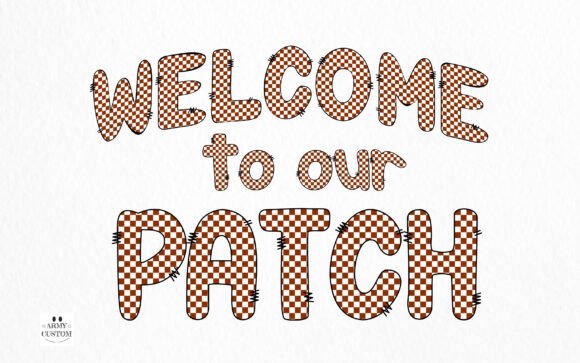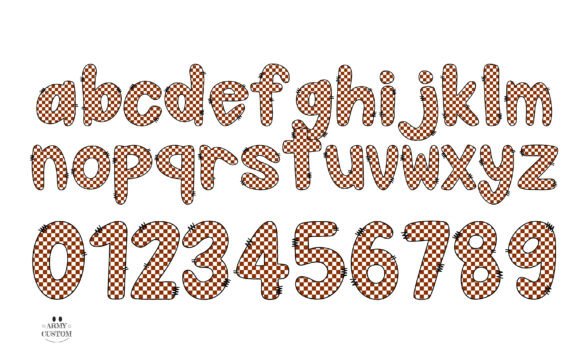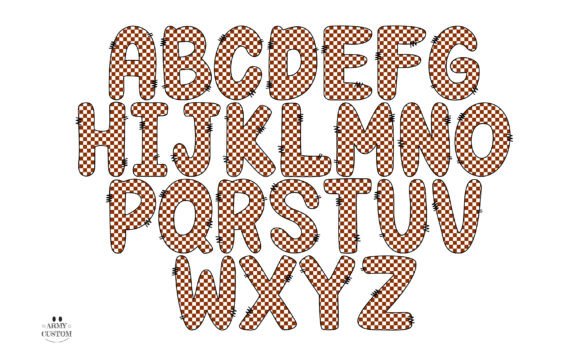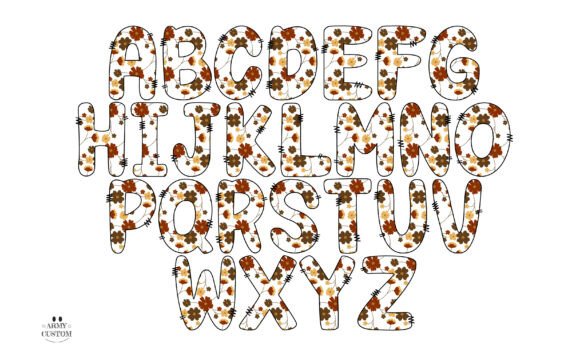
Introduction to Preppyfall5 Plaid Font
As the crisp autumn air sets in, many designers find themselves itching to create something new and cozy. Perhaps you’re brainstorming ideas for a seasonal craft project or working on a design concept that screams ‘fall vibes.’ If so, you’re in luck! Introducing the Preppyfall5 Plaid Font, a stunning color font collection that embodies the warmth and charm of the autumn season.
This delightful font features a unique patchwork effect, complete with patterns like florals, pumpkin florals, and hand-drawn stitching. With its handcrafted look and rich autumn palette, the Preppyfall5 Plaid Font is an absolute game-changer for designers seeking to add a touch of whimsy to their creative projects. Whether you’re working on a seasonal quote, greeting card, or DIY design, this font is sure to elevate your design to the next level.
Key Features of Preppyfall5 Plaid Font
- High-quality design resource perfect for creative projects
- Features a unique, preppy-inspired plaid pattern with a modern twist
- Designed to be highly versatile, suitable for a wide range of design applications
Honest Review: Preppyfall5 Plaid Font
I recently stumbled upon the Preppyfall5 Plaid Font while searching for design resources online. As a designer, I was excited to give it a try and see how it could enhance my creative project.
Firstly, I was impressed by the font’s high quality and unique design. The plaid pattern adds a fun and playful touch to any text. I was able to use it for a project and the result was amazing.
Here are some things that work well with the Preppyfall5 Plaid Font:
- ✨ Unique design that adds a personal touch to any project
- ✨ High quality, making it perfect for printing or digital use
- ⚠️ The font does not come with a transparent background option, which might be a problem for some designers
- ⚠️ The font is a bit heavy, so it might not be suitable for all design projects
Overall, I was impressed by the Preppyfall5 Plaid Font and would definitely recommend it to designers looking for a unique and high-quality design resource. It’s perfect for creative projects that require a fun and playful touch.
The Preppyfall5 Plaid Font is a high-quality design resource that can elevate your creative project with its unique and stylish plaid pattern. With a transparent background, this font is perfect for designers who want to add a touch of sophistication to their designs.
Tips for Getting the Most Out of Preppyfall5 Plaid Font
For the best results, use the Preppyfall5 Plaid Font in combination with other design elements, such as images and graphics, to create a cohesive and visually appealing design.
The Preppyfall5 Plaid Font is perfect for a variety of creative projects, including invitations, party decorations, and marketing materials. You can also use it to create custom logos, business cards, and other branding materials.